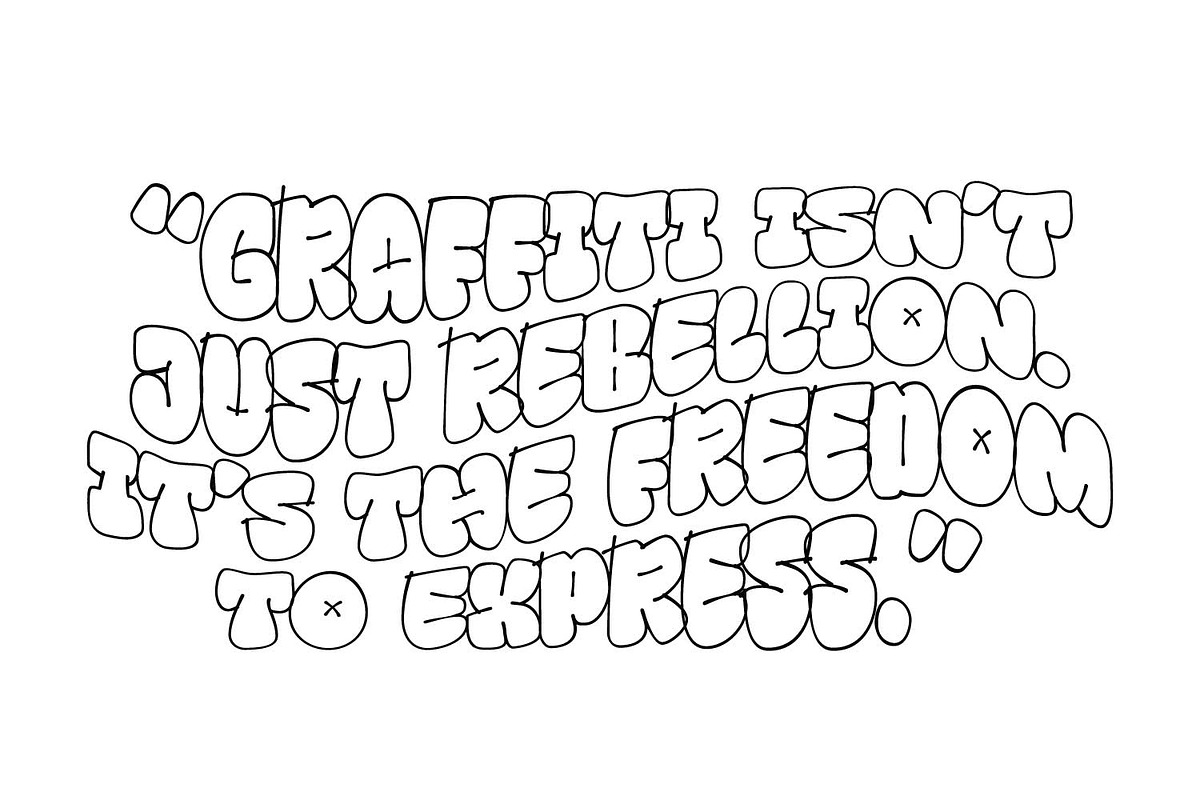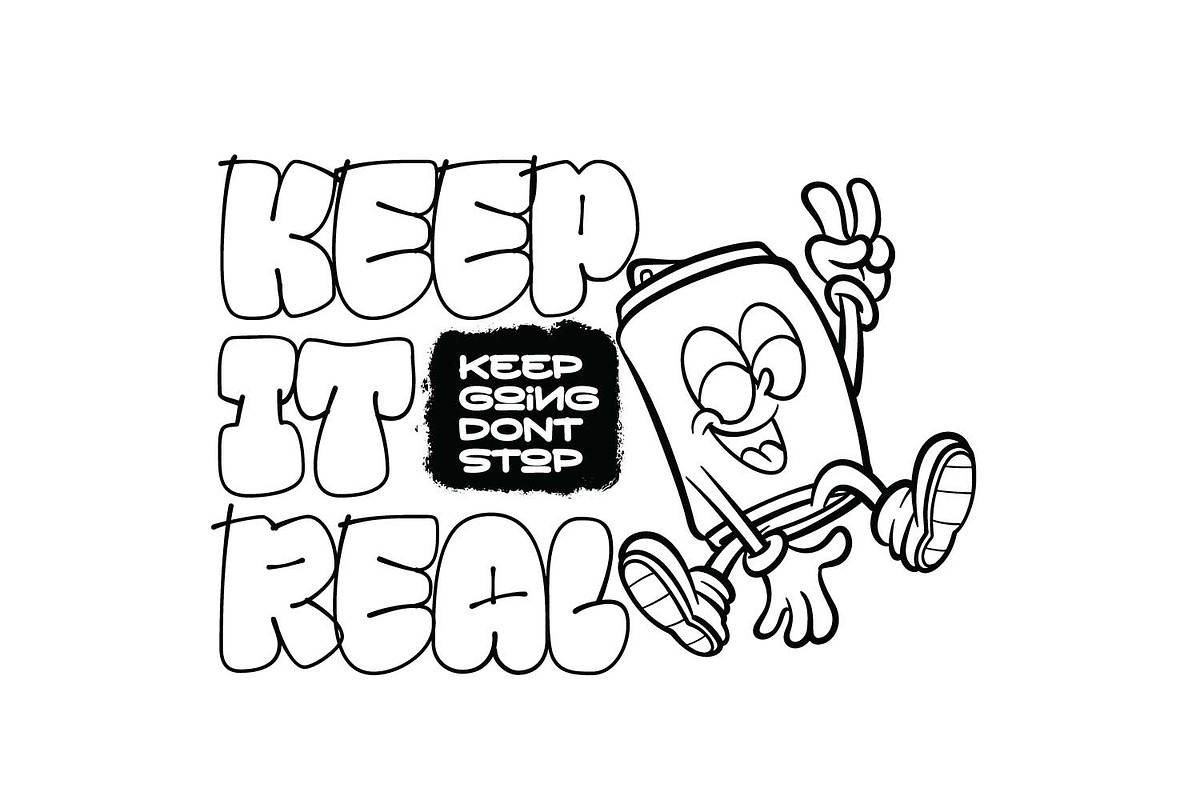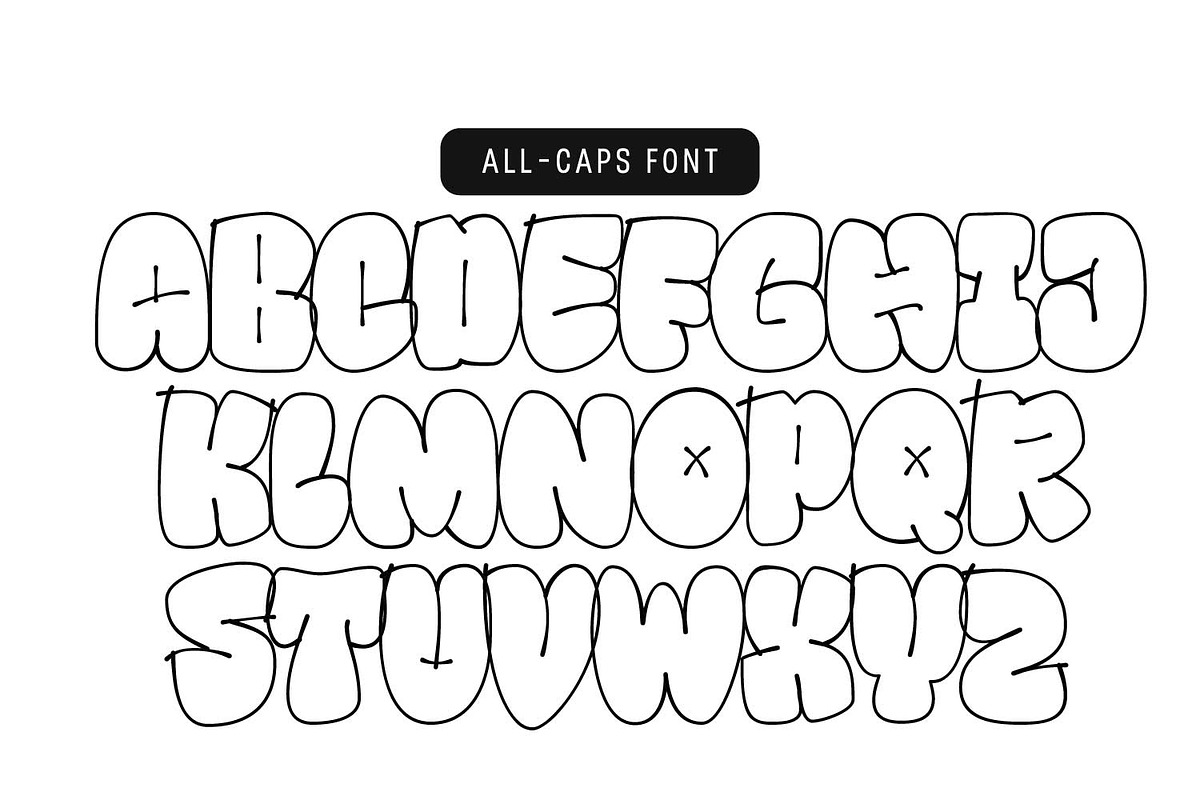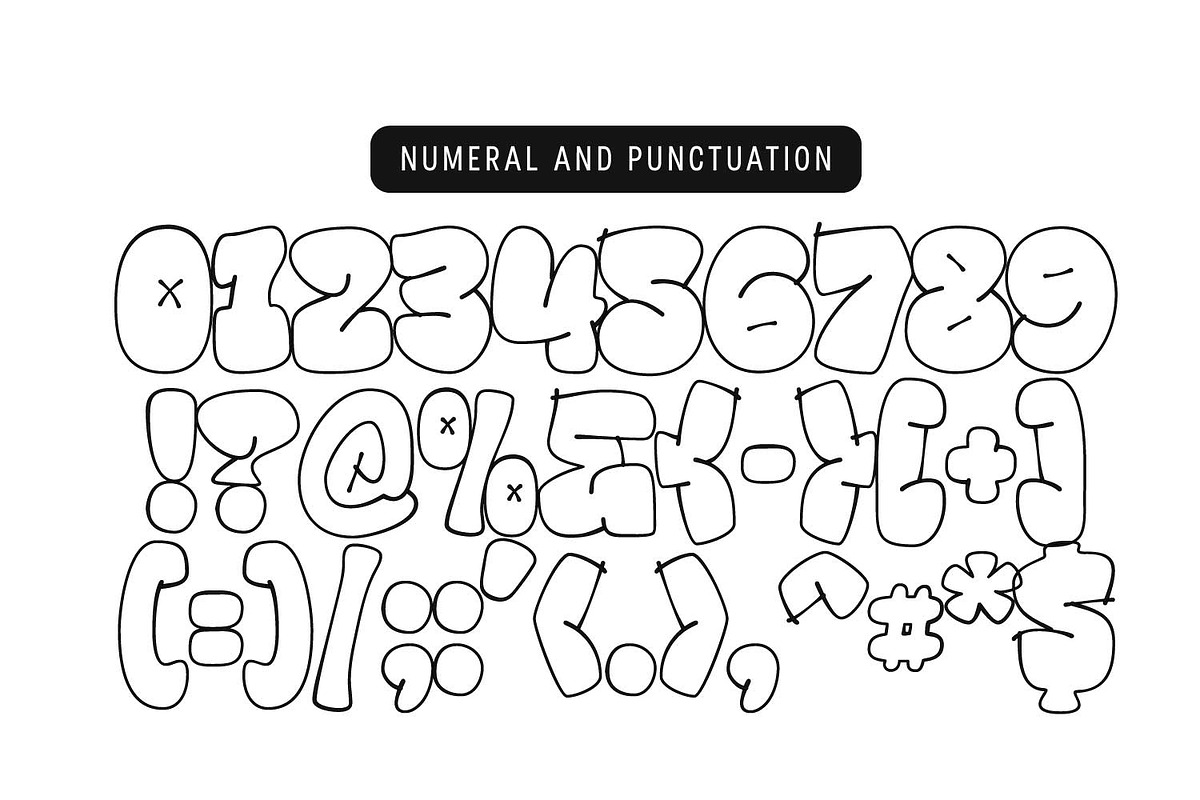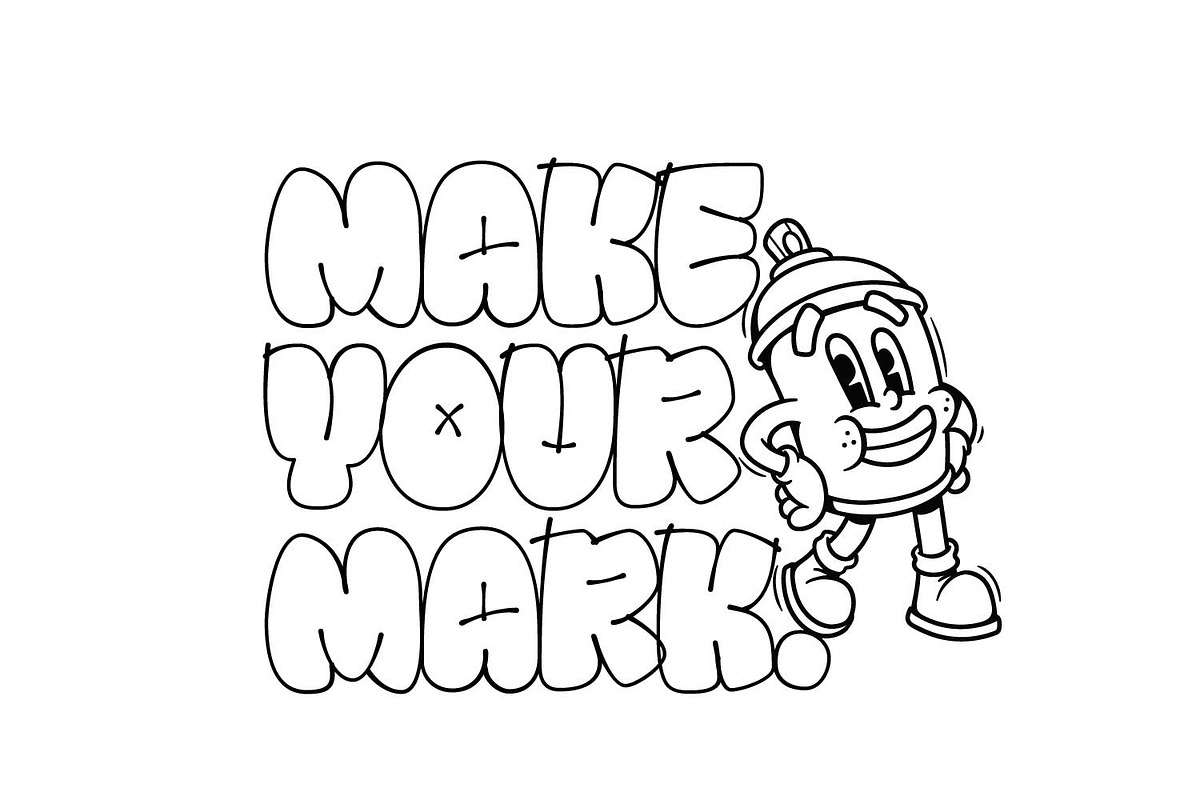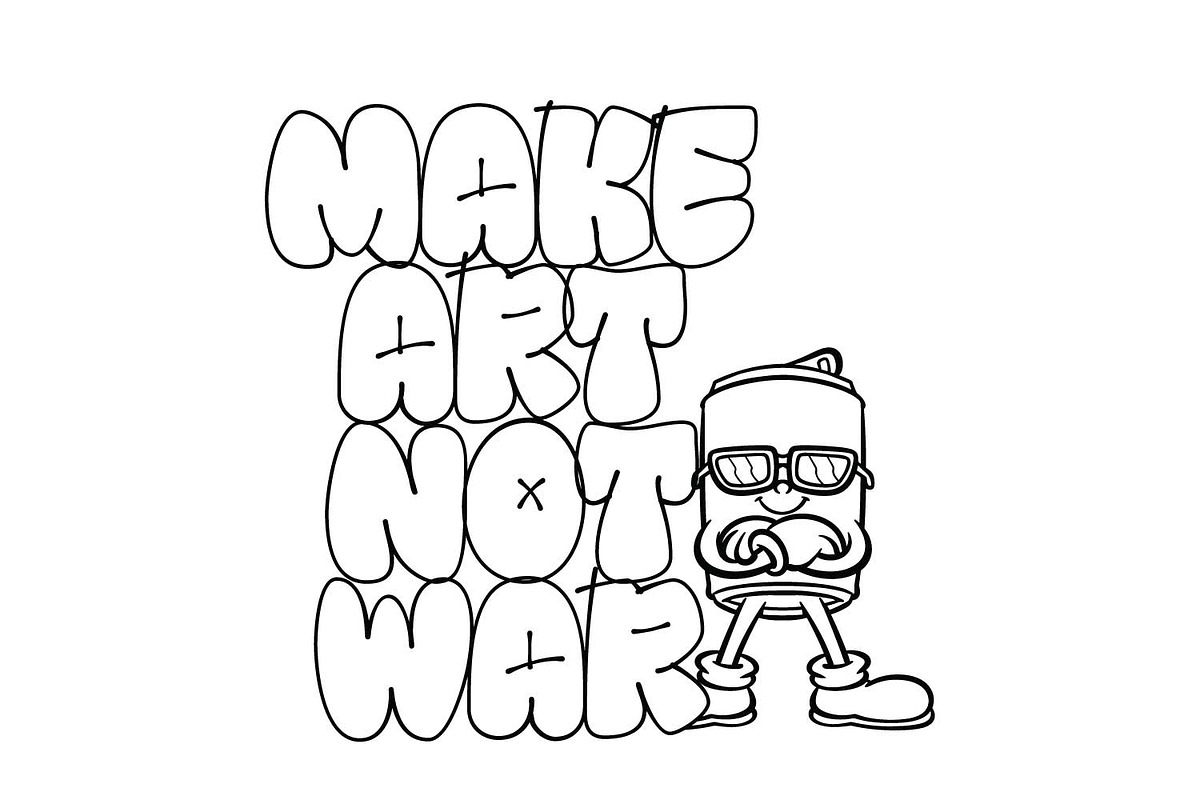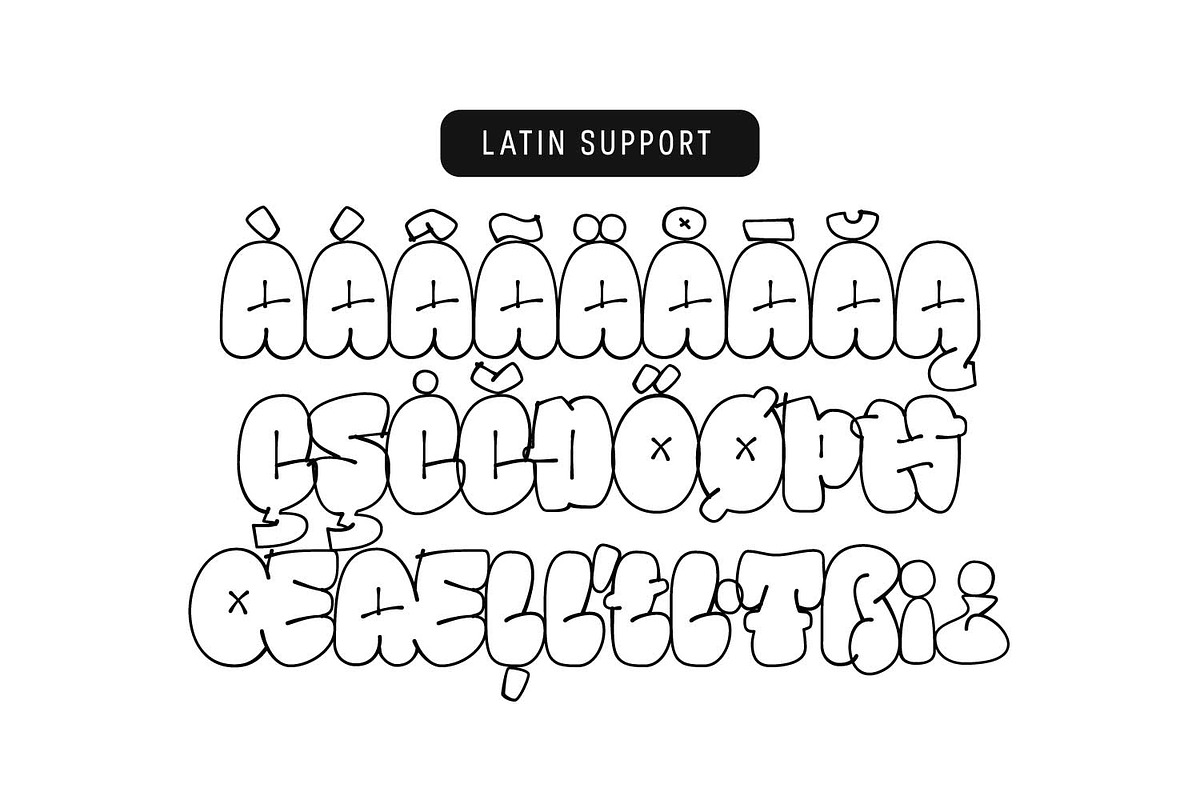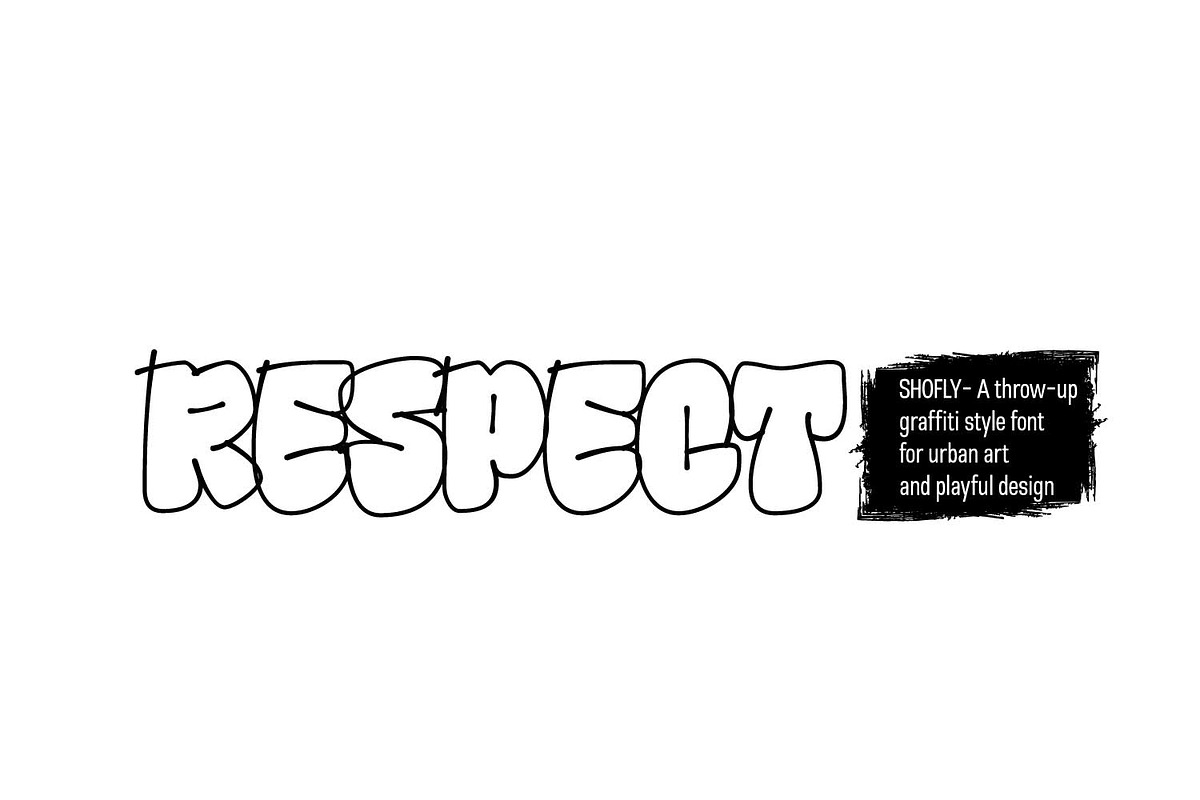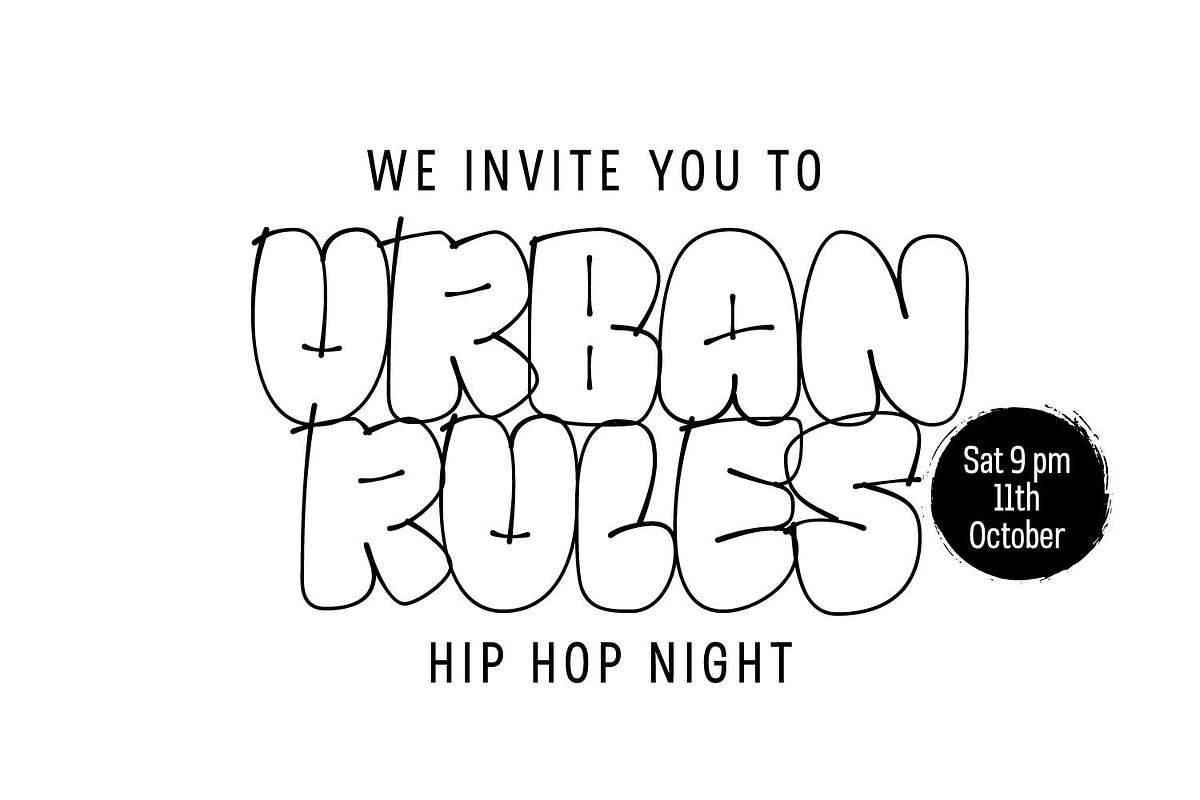
Shofly - Throw up Graffiti
Shofly is a bold and playful throw-up graffiti style font that captures the raw energy of street art. Each letter is drawn with soft, inflated strokes that resemble bubble graffiti tags, making it instantly recognizable and full of character. Its rounded edges and expressive shapes bring a sense of movement and fun while maintaining the authenticity of hand-drawn urban lettering. Designed as an all-caps display font, Shofly is ideal for hip-hop posters, streetwear branding, album covers, event flyers, and any creative project that embraces freedom and individuality. It also supports numerals, punctuation, and Latin accents for multilingual use. Whether you’re creating bold headlines or playful designs, Shofly adds a touch of rebellion, rhythm, and respect to every